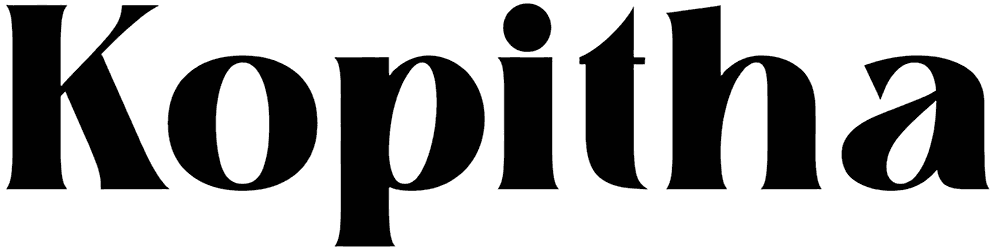
Kopitha Font
Aside from its association with seriousness and dryness, Kopitha has a cool inner aesthetic that looks perfect for your next design project.
This serif font has letters with a standard design that can match any background and save the viewer’s heart for you. This font works very well for the implementation of international and sports projects and carries a lot of potential to convey a sense of reliability and leadership.